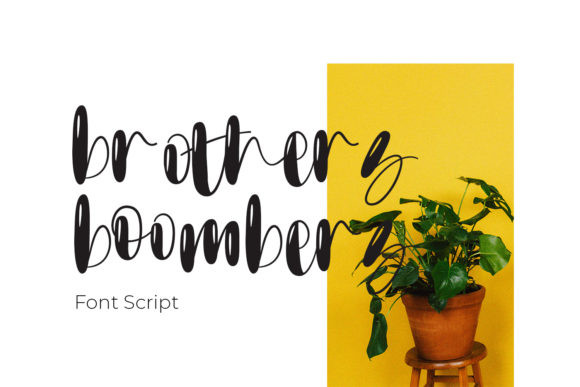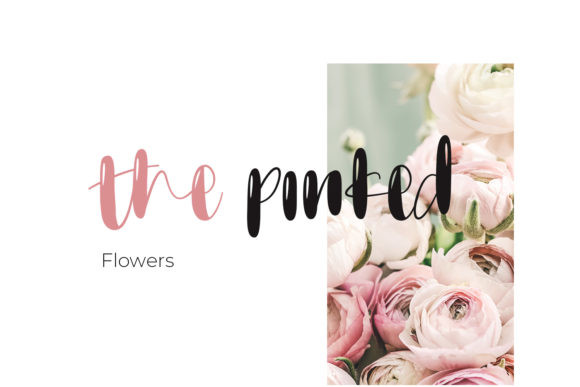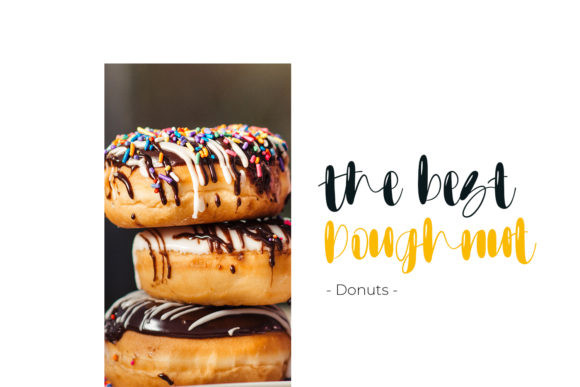
Brothers Boombers Font
Brothers Boombers is a classy and sweet script font with a modern update of the well-known calligraphic style. It will turn any crafting venture into an inspired and fresh piece of art!